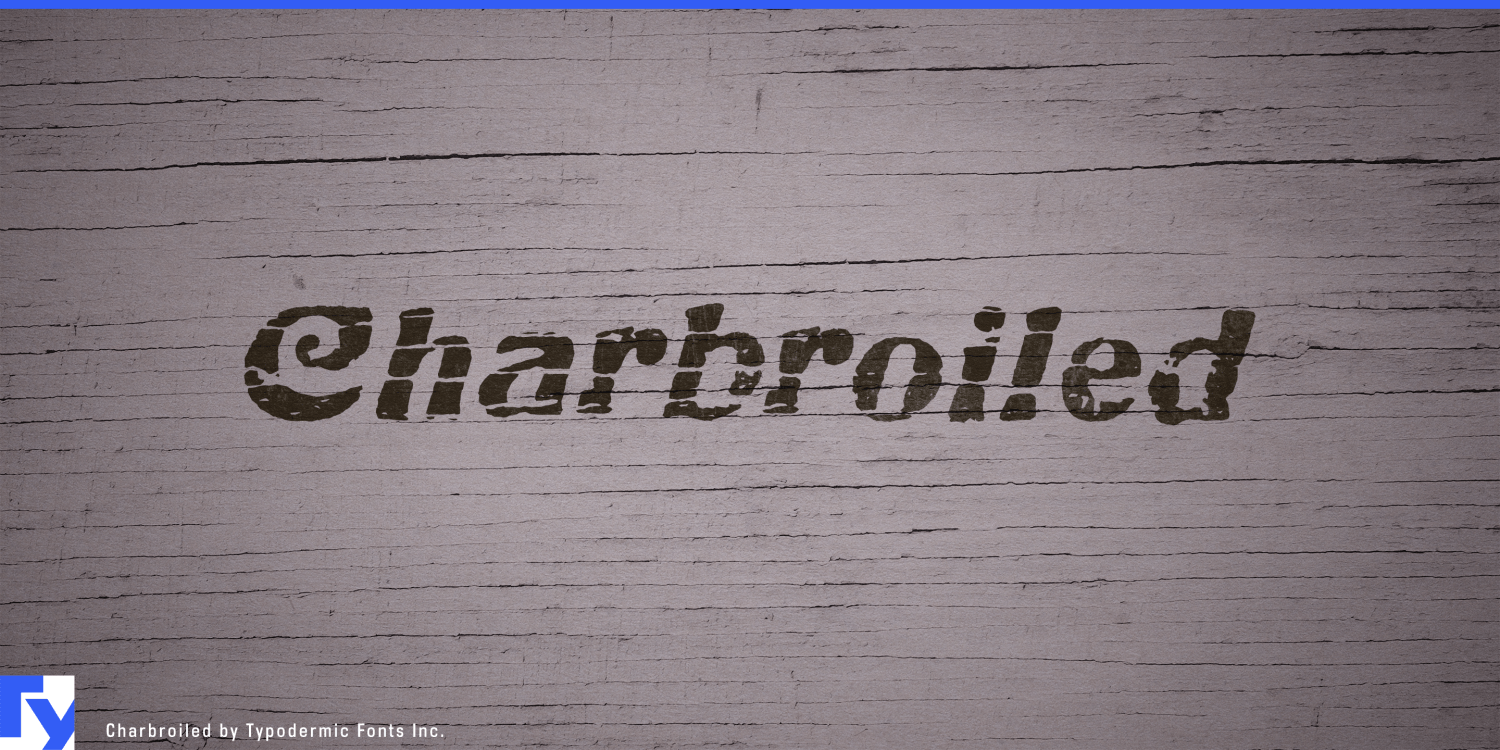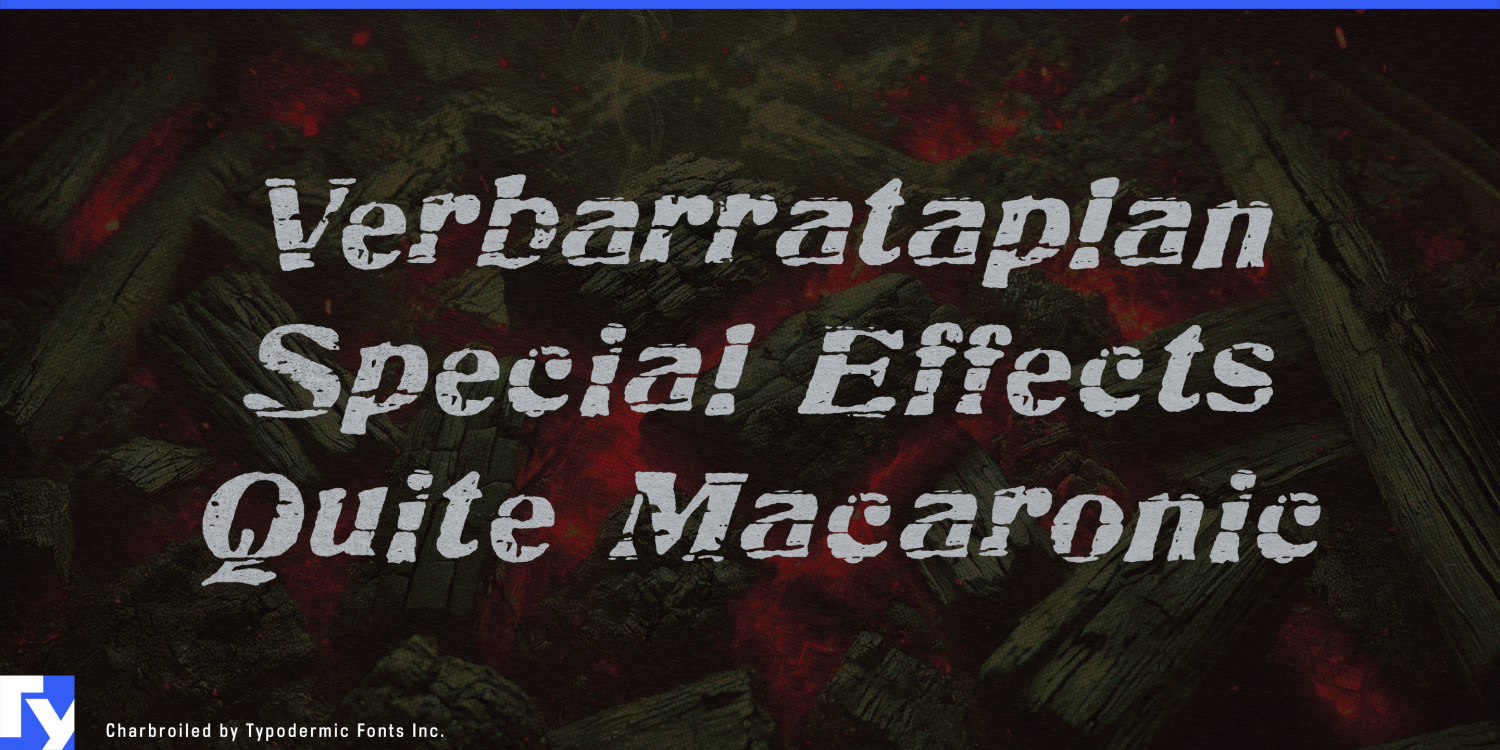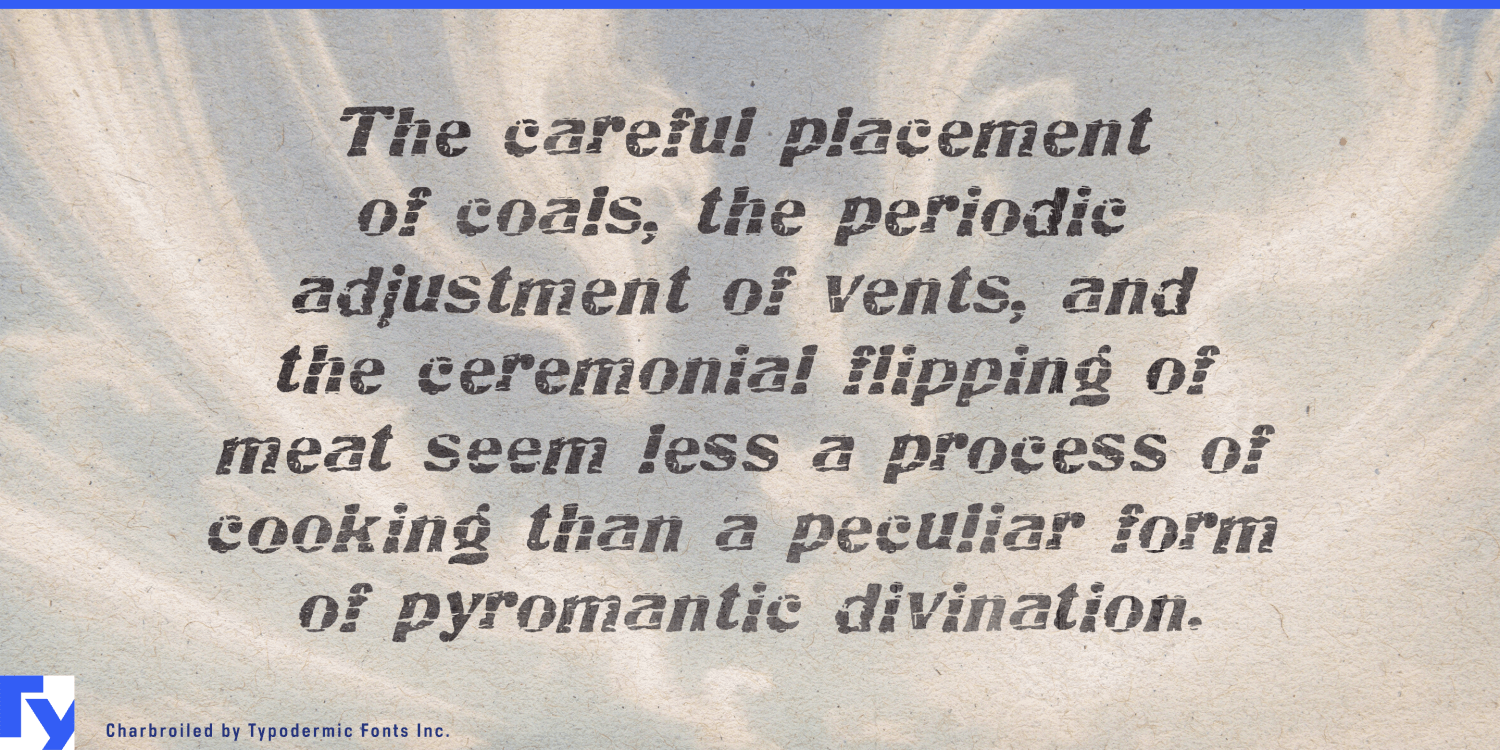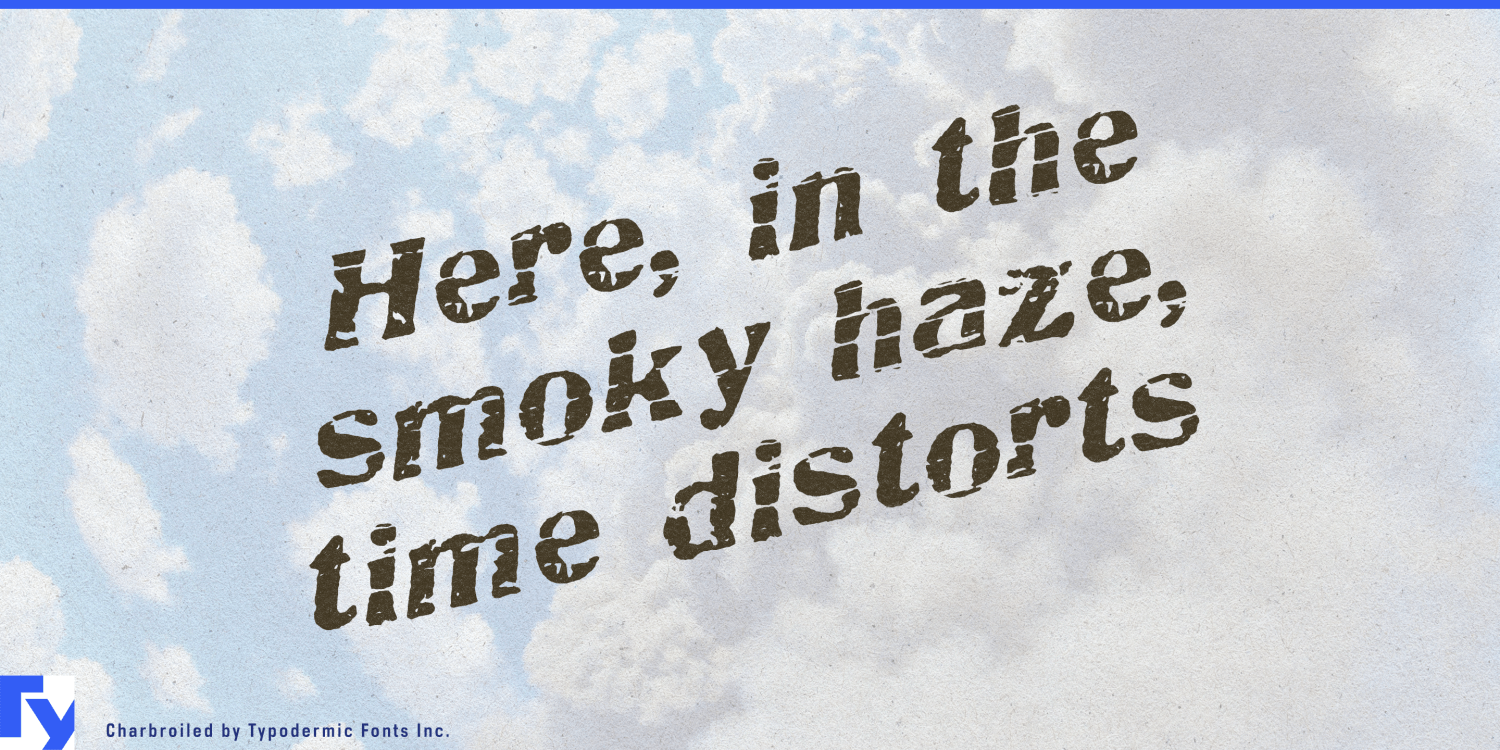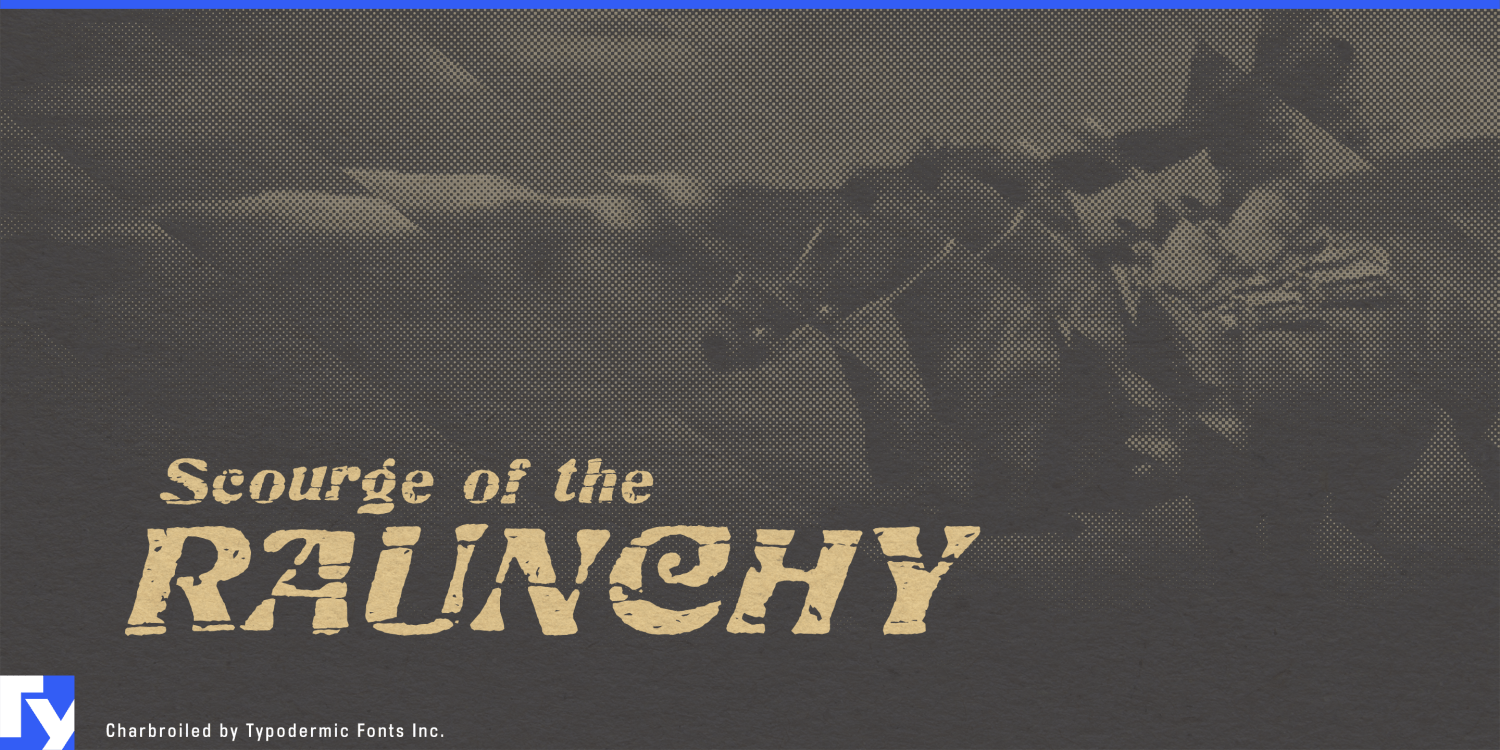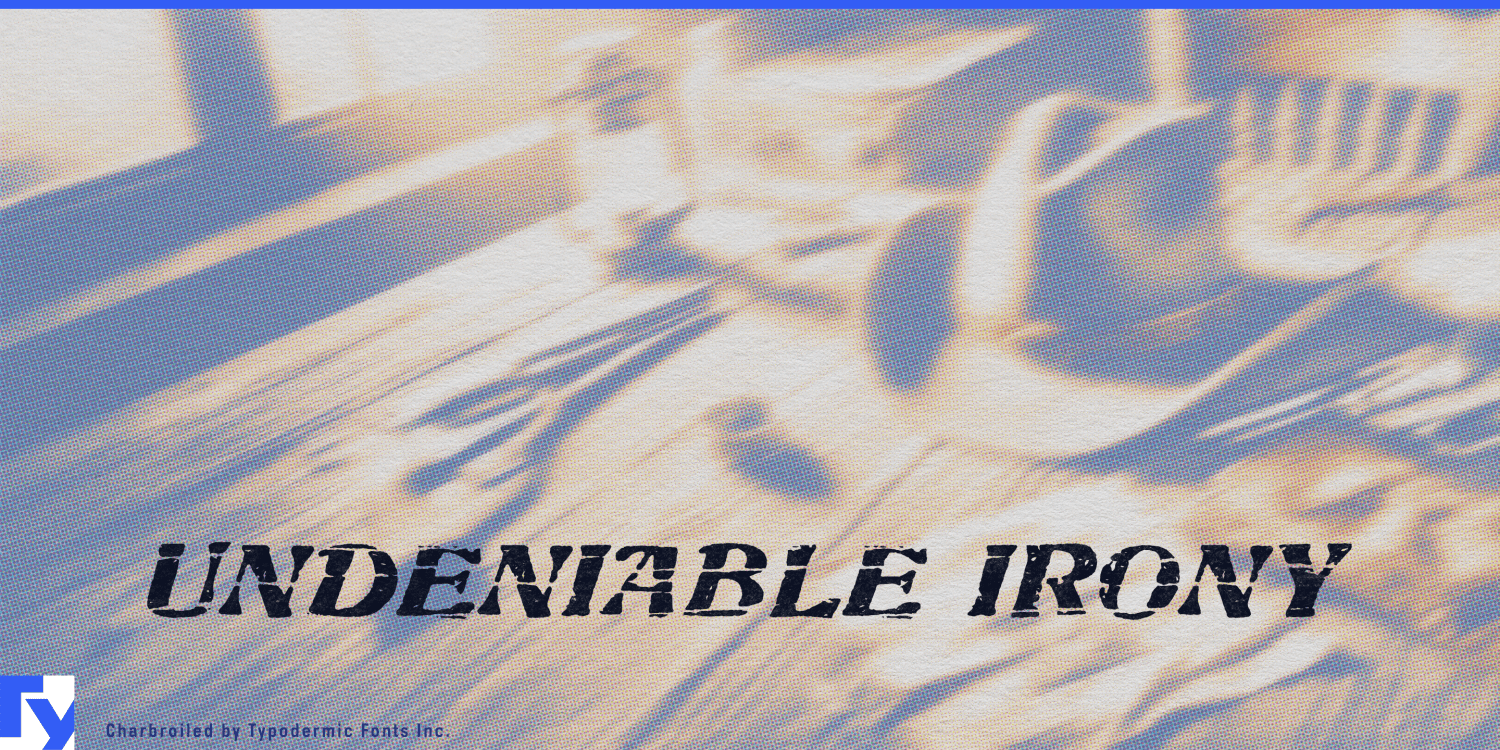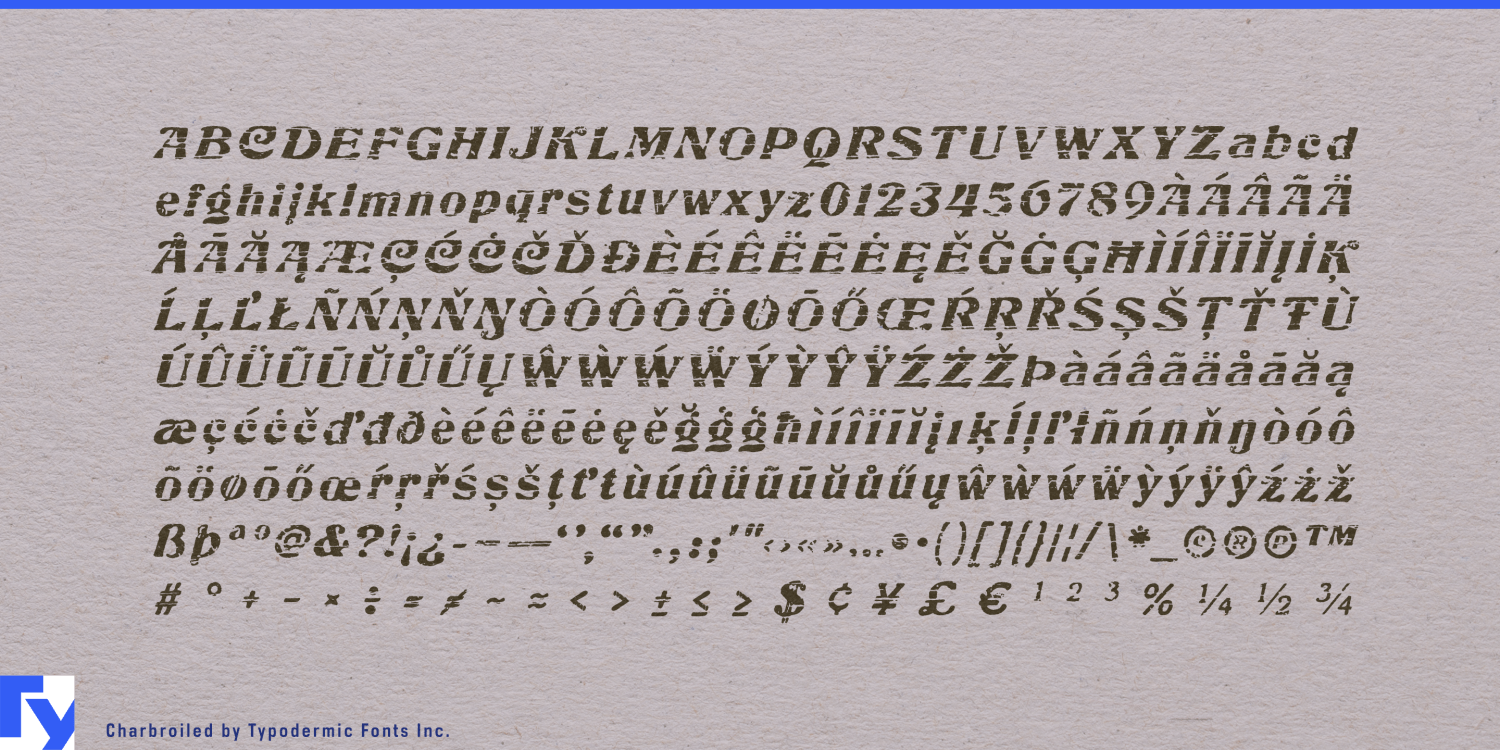
Charbroiled
Live-fire food has a typography problem. Clean modern lettering can feel too polished for smoke, char and wood; conventional Western type can turn a serious restaurant or product into a costume. Charbroiled occupies the useful space between them: an old American italic display face with the wear already built into the strokes.
The design began with American Italic, a 1902 typeface by Hermann Ihlenburg, and was reconstructed from scans of an old metal-type catalog. Its narrow, forward-leaning forms retain the brisk commercial energy of the original, while a texture derived from photographs of weathered barn boards gives the letters a scorched, handled surface.
Smokehouses, charcoal-grill restaurants, open-fire kitchens, steakhouses and wood-fired dining concepts can use Charbroiled for names, menu section headings, signature-dish titles, takeaway packaging and campaign graphics that suggest heat and age without resorting to cartoon flames or saloon lettering. As a distinctive single display style, it works naturally beside a cleaner companion face for descriptions, prices and service information.
Barbecue sauces, dry rubs, smoked salts, jerky, smoked nuts and other fire-oriented pantry goods present the same problem on a smaller surface. Charbroiled’s condensed width helps long flavor names and product variants stay prominent on bottles, tins and narrow front panels, while mixed case gives it more flexibility than an all-caps novelty face.
Smokers, charcoal grills, fire-pit cooking systems, lump charcoal, smoking wood and pellet fuels extend the same language into outdoor cooking. Model names, fuel varieties, cartons, dealer displays and launch graphics gain a weathered character with a direct material connection to heat, smoke and wood.
Bourbon, rye, barrel selections and smoked-cocktail programs offer a related territory for series names, tasting-event graphics and menu headings. The turn-of-the-century American structure and worn surface provide age and atmosphere without relying on frontier clichés.
Charbroiled gives brands built around smoke, wood and heat an aged American display voice without forcing them into cowboy typography or decorative fire effects.